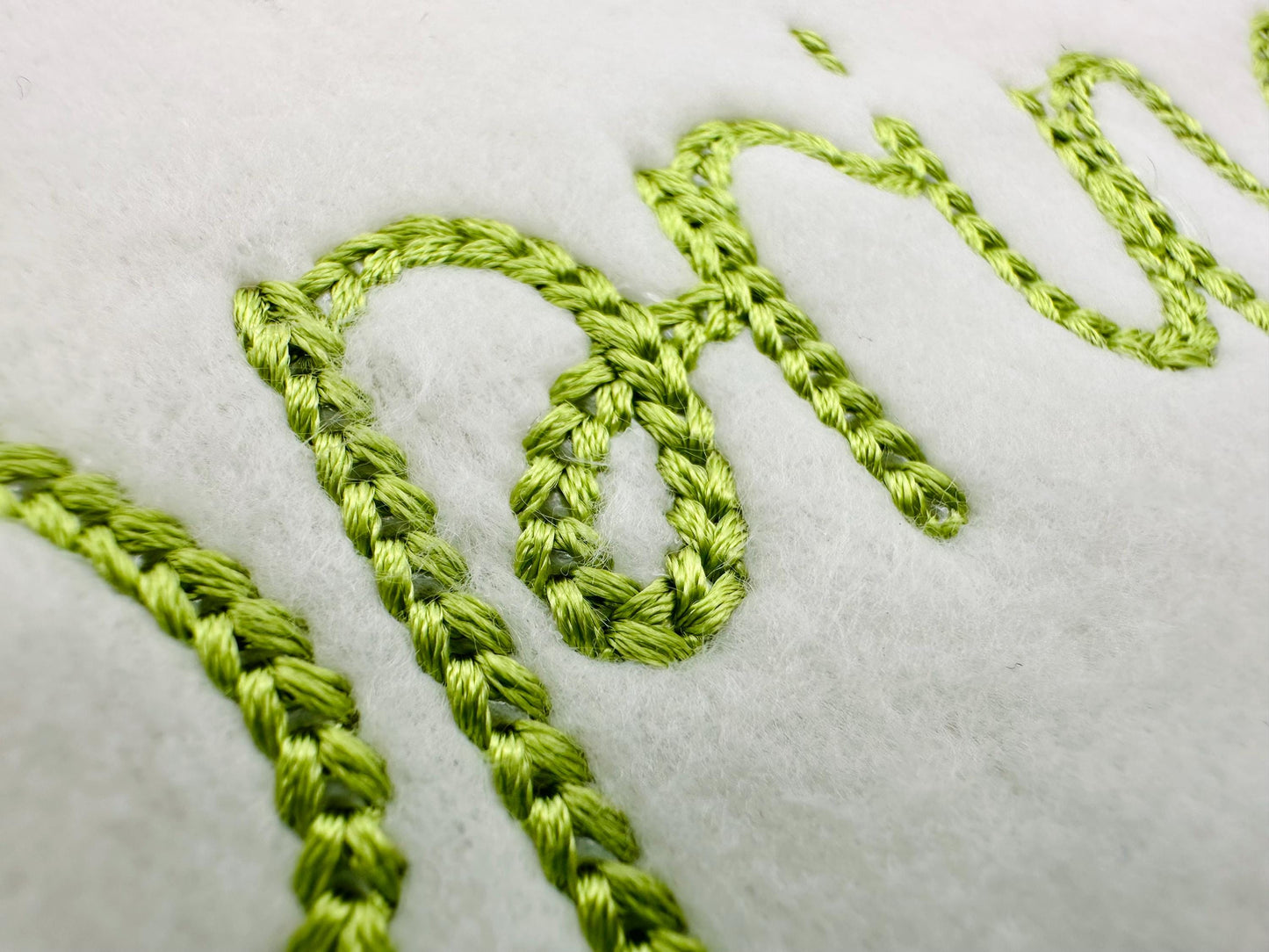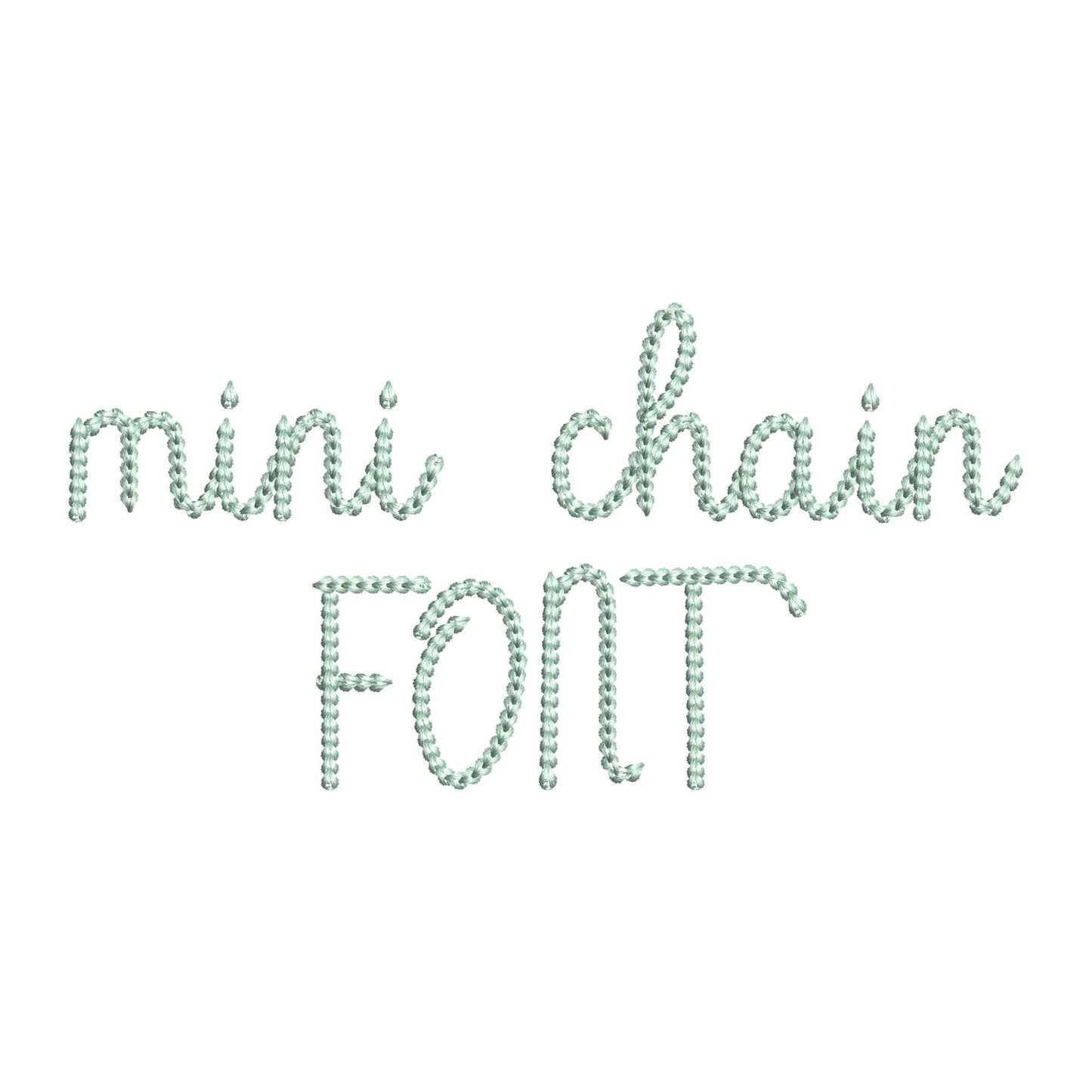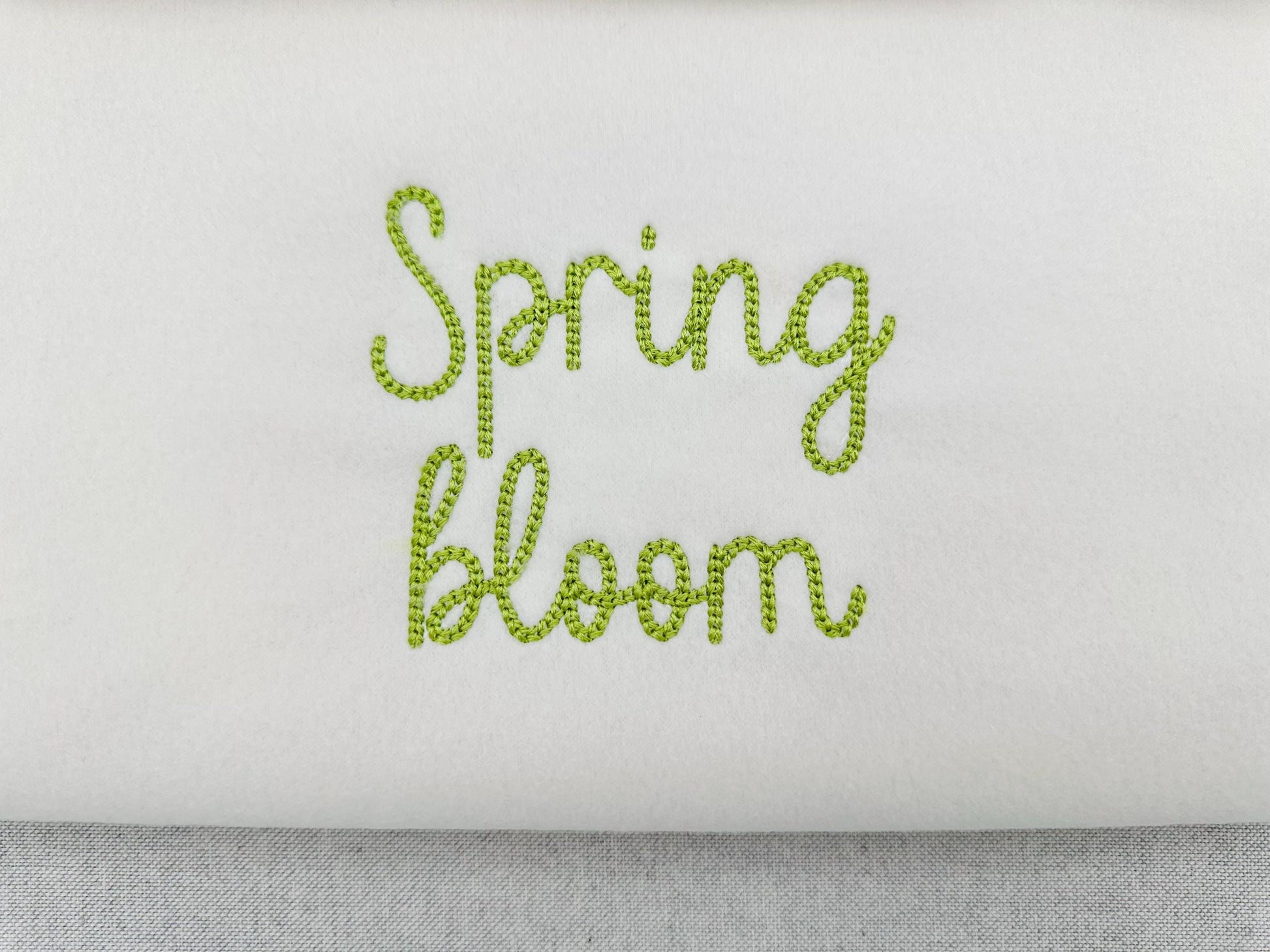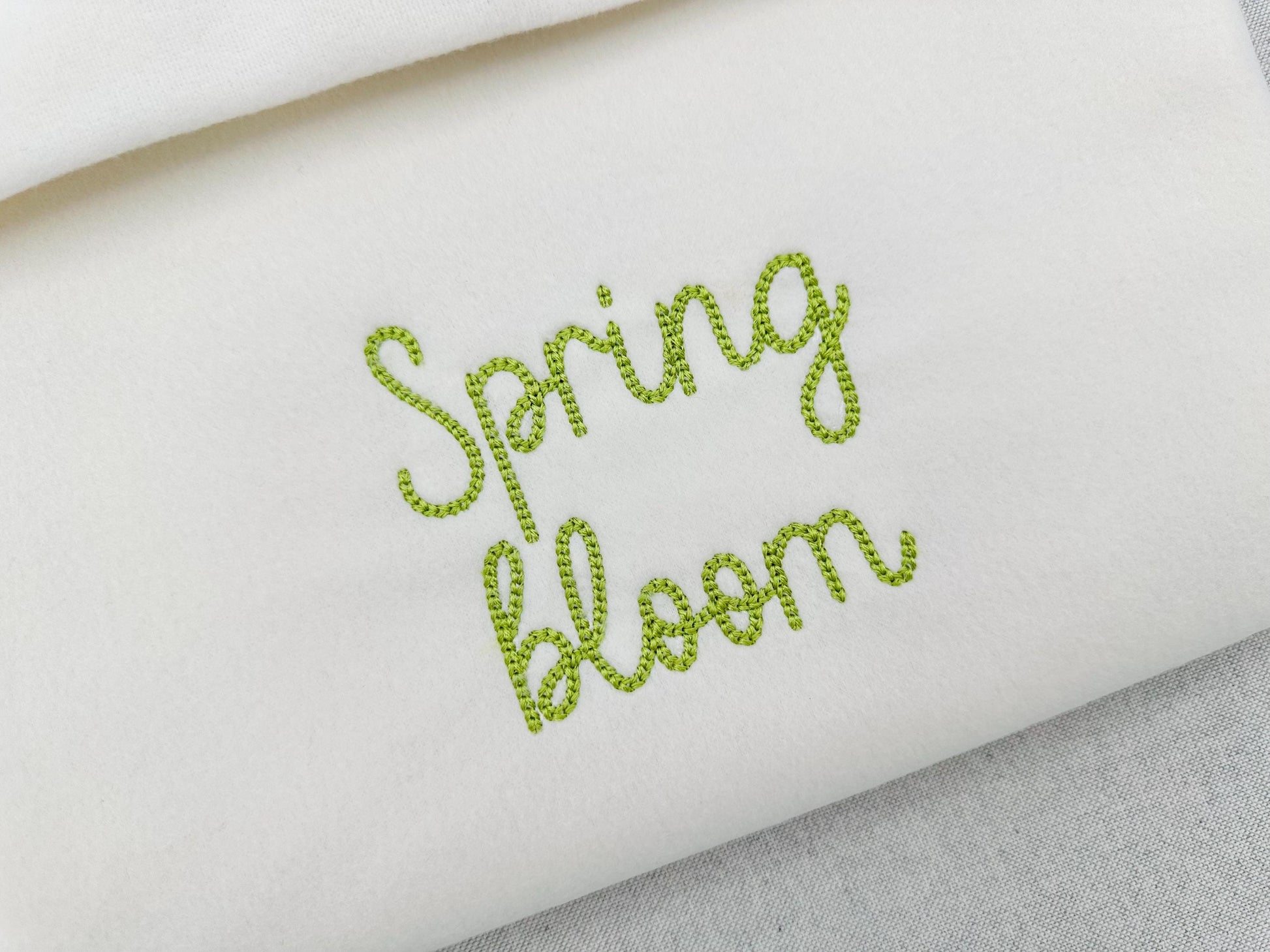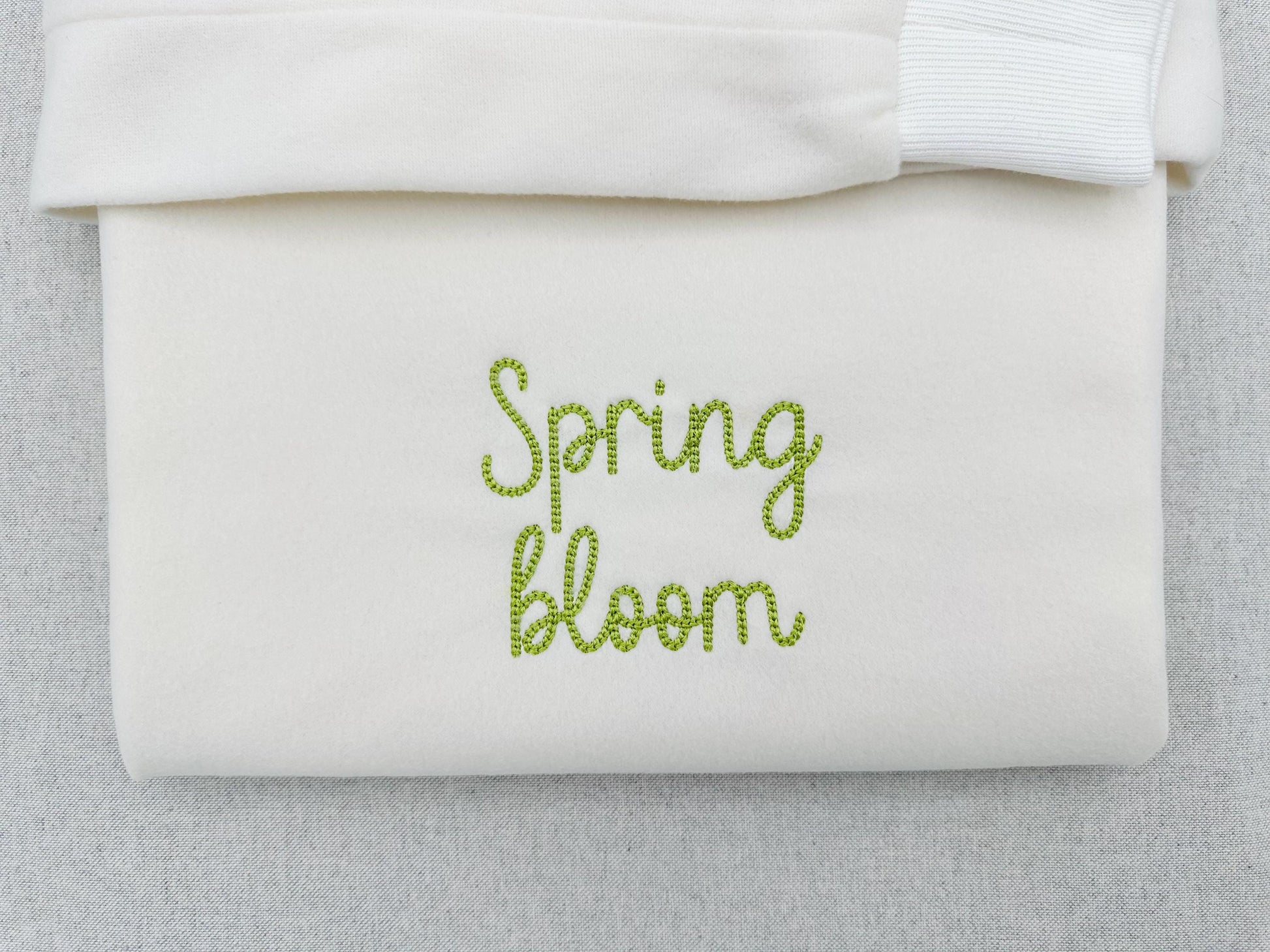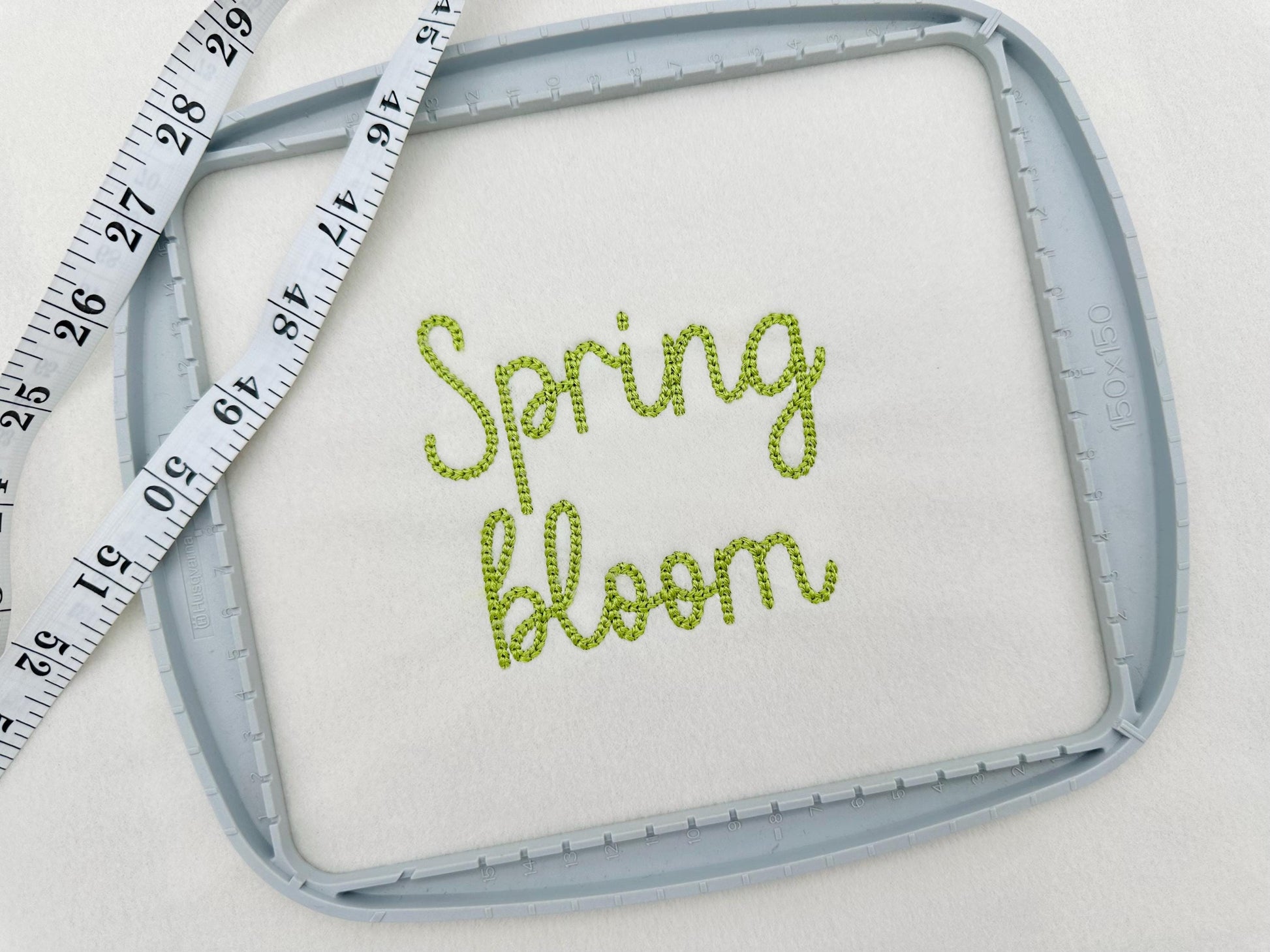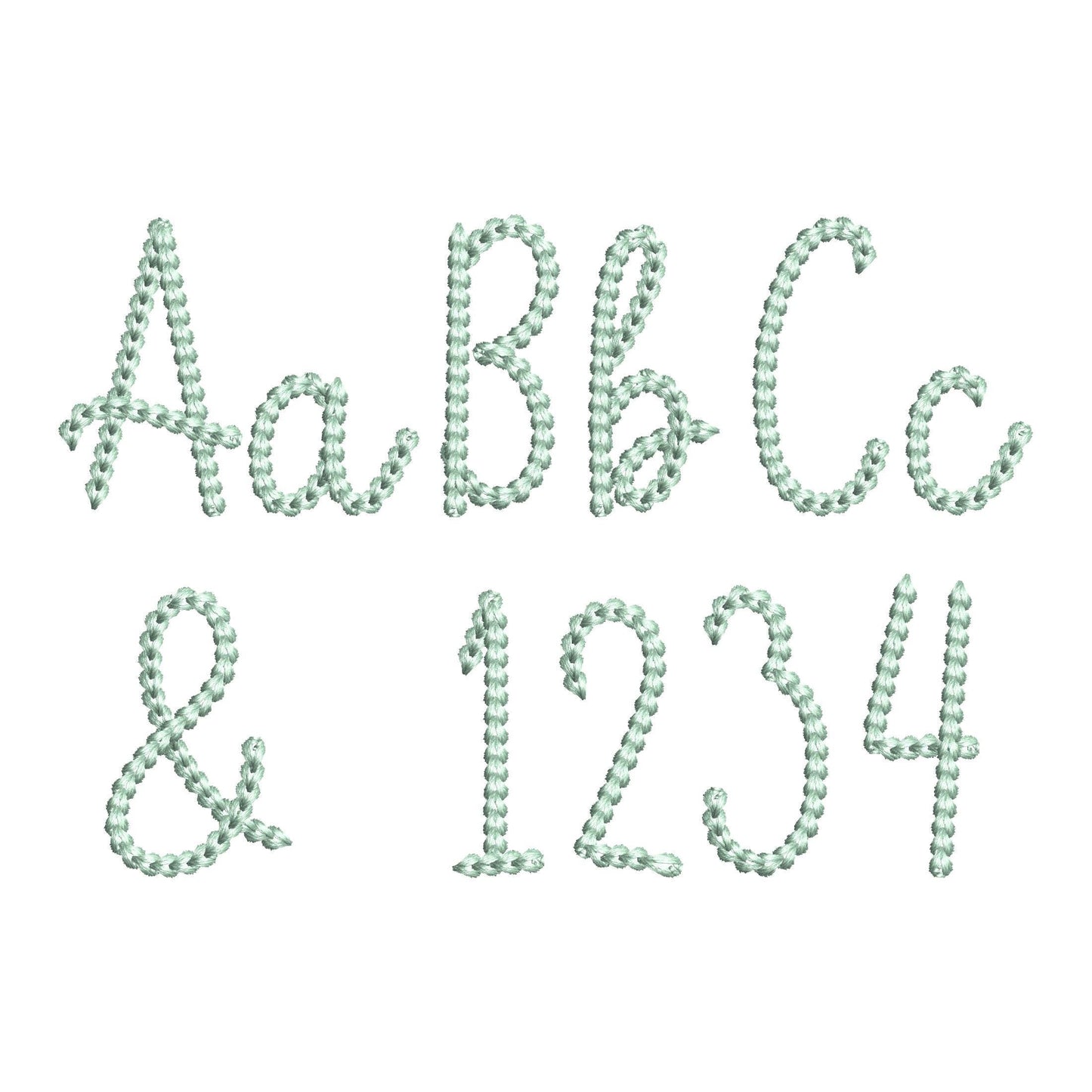
Or click to open the linkA tiny, extra bold handwritten script in chain stitch. Made for small names and words on baby clothes, cuffs, pockets, towels and gift tags.
The letters come in five sizes: 0.9, 1.1, 1.4, 1.7 and 2.1 inches. Includes uppercase and lowercase letters, numbers 0-9 and punctuation.